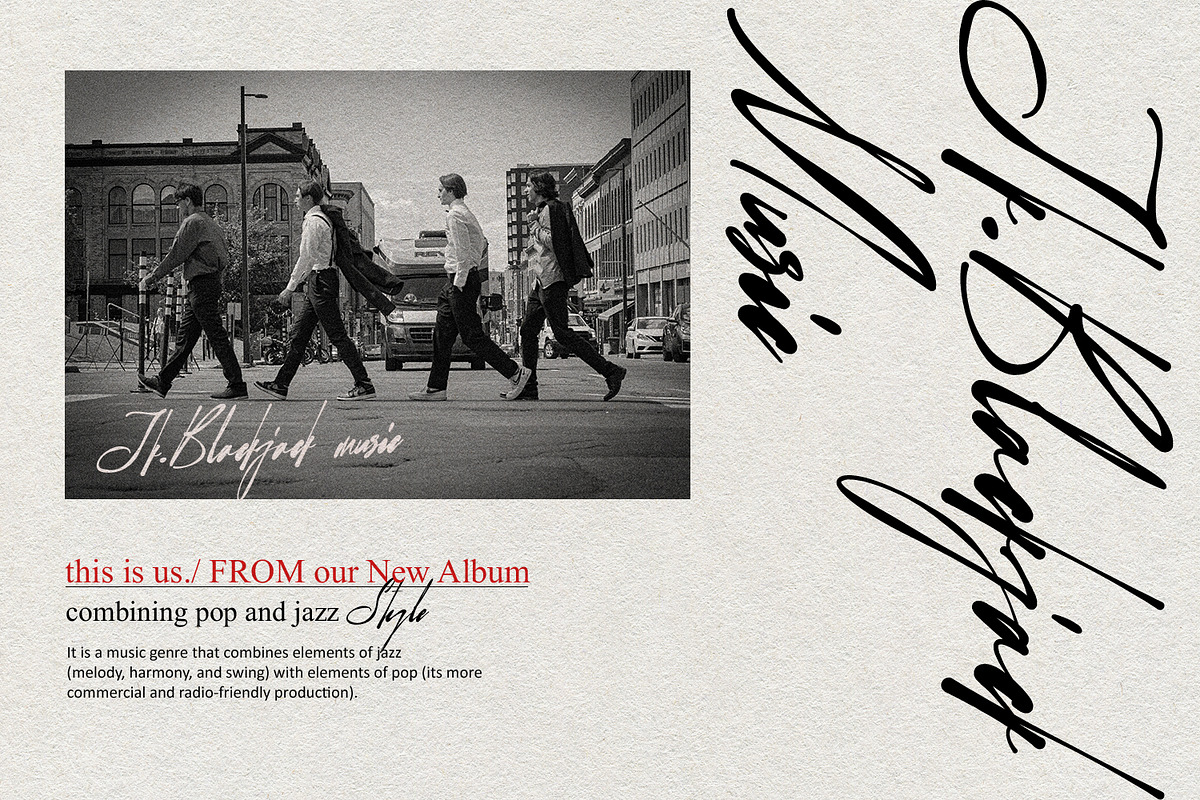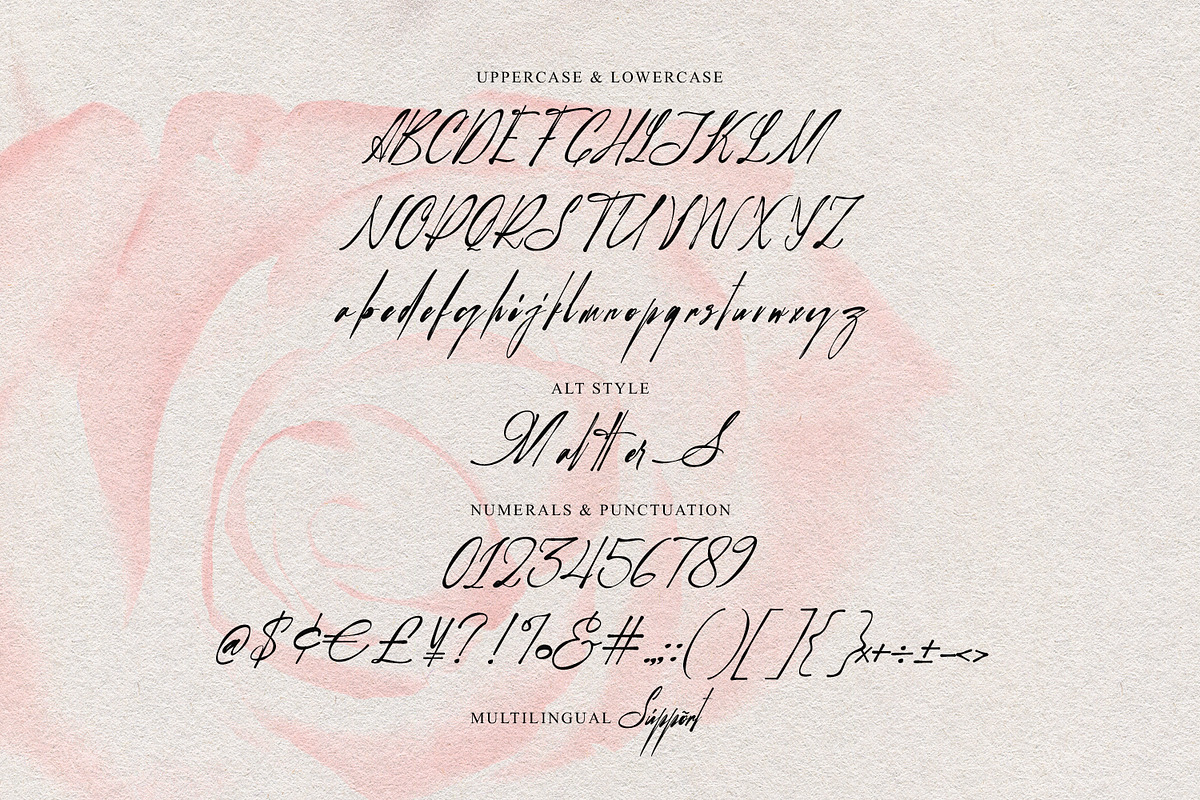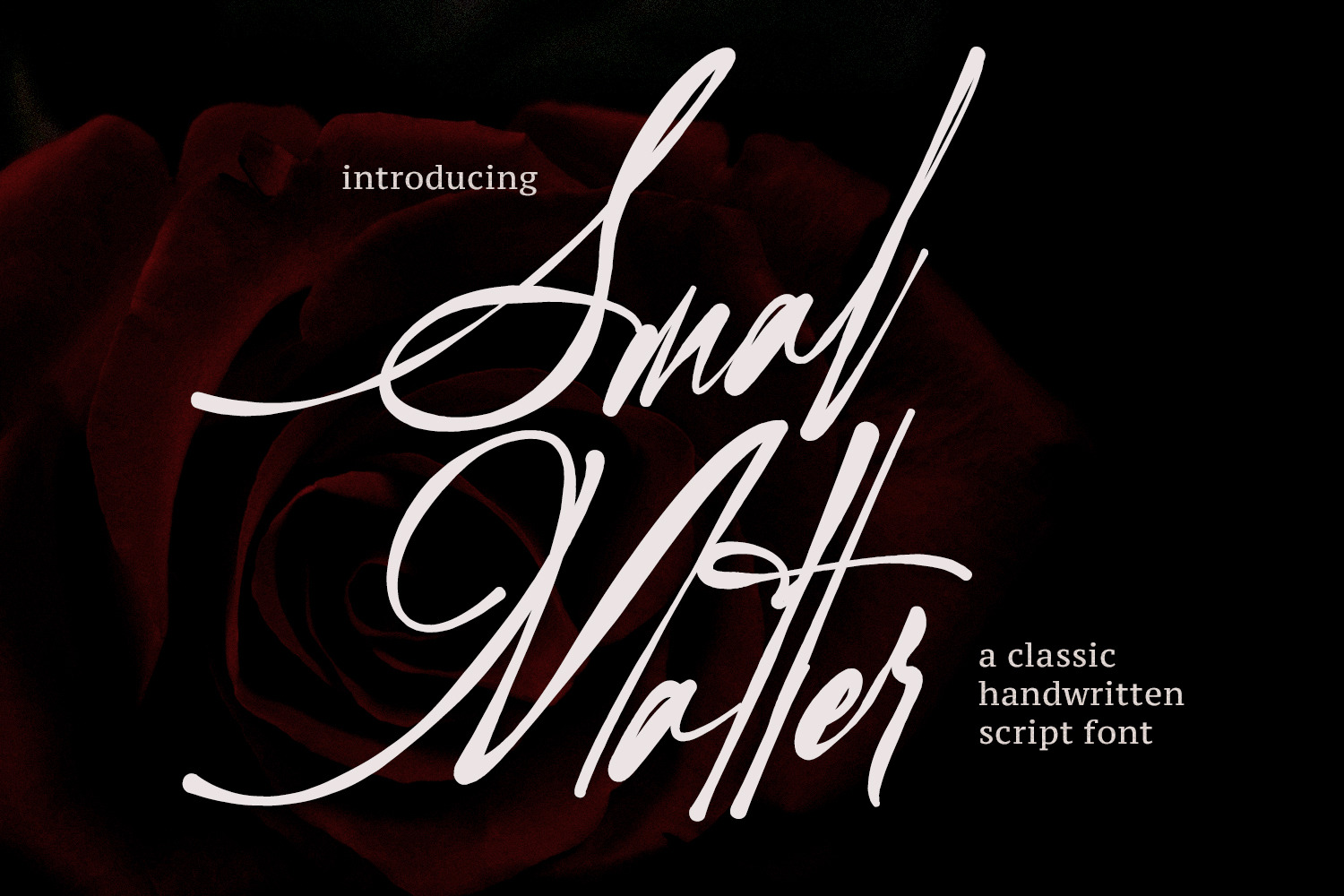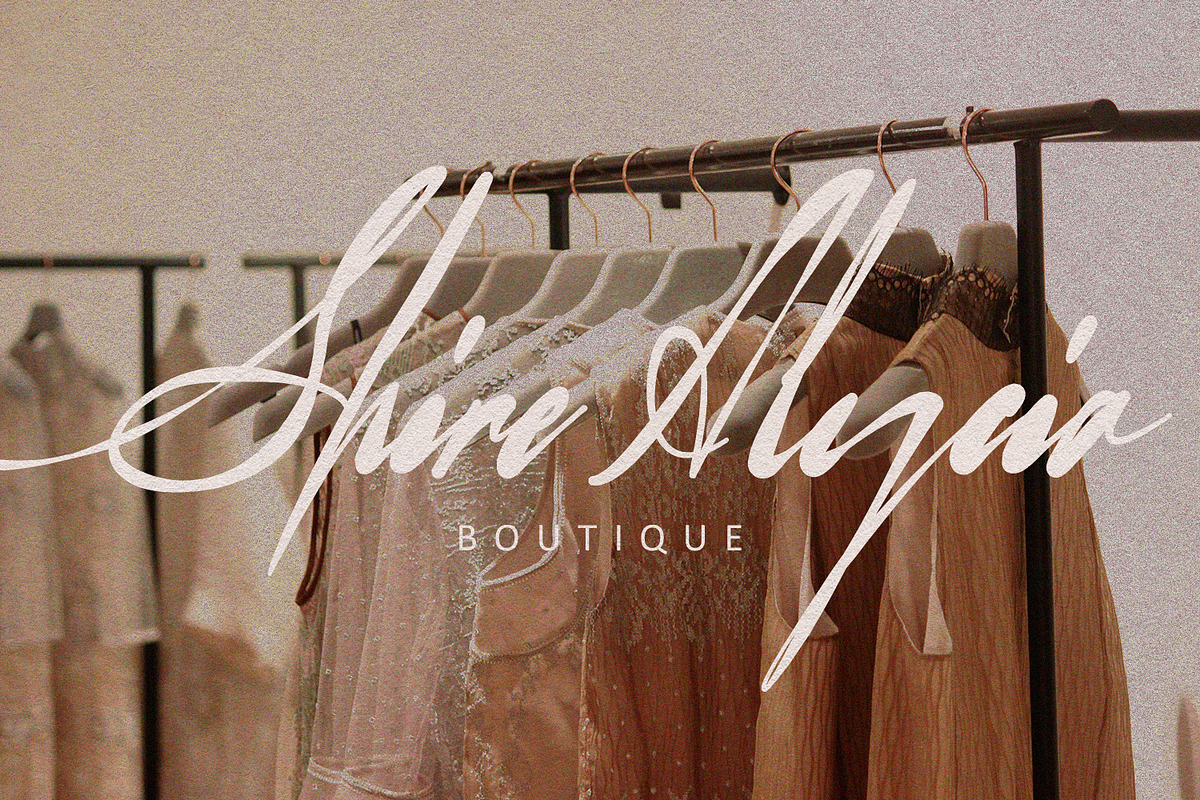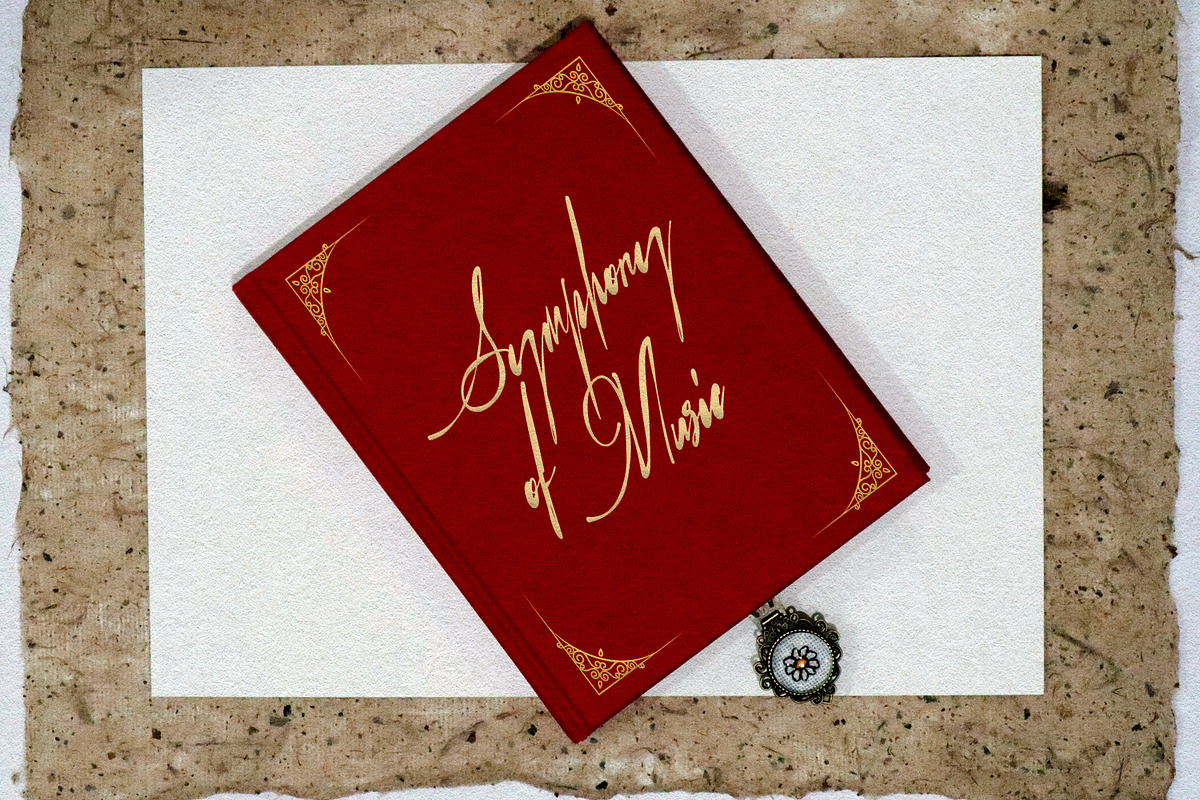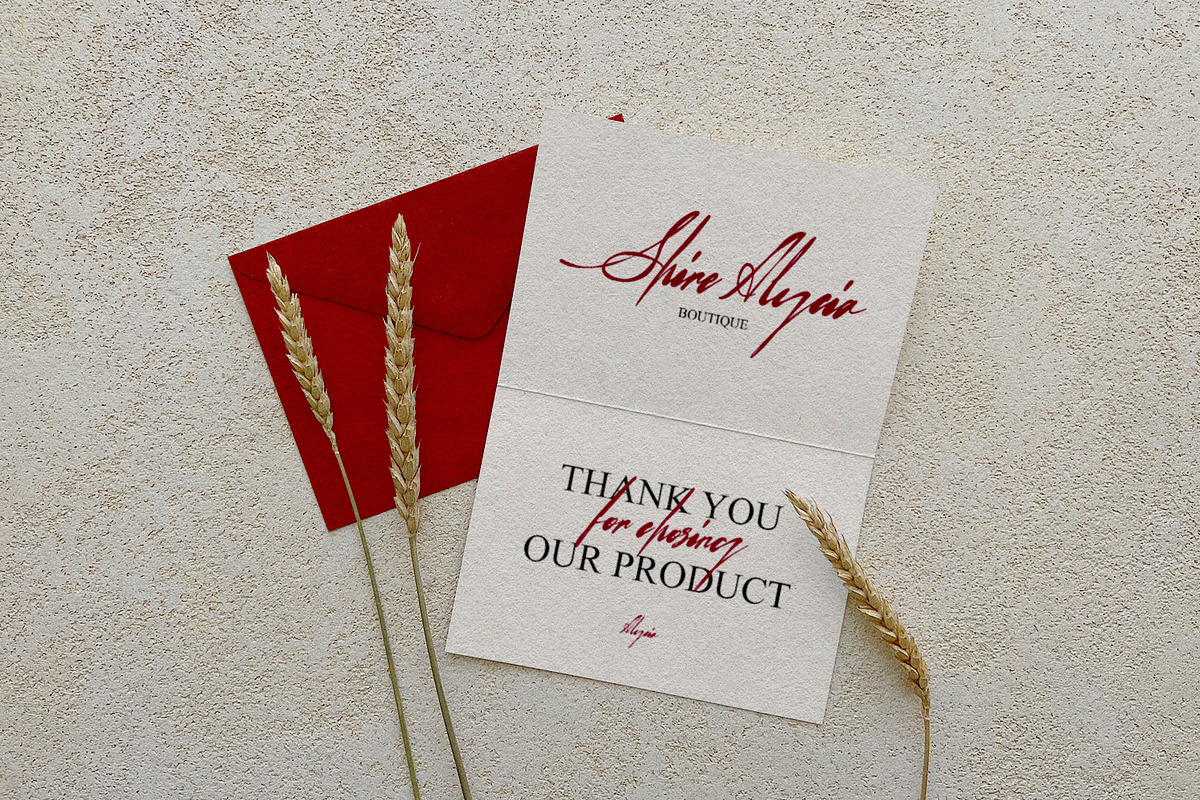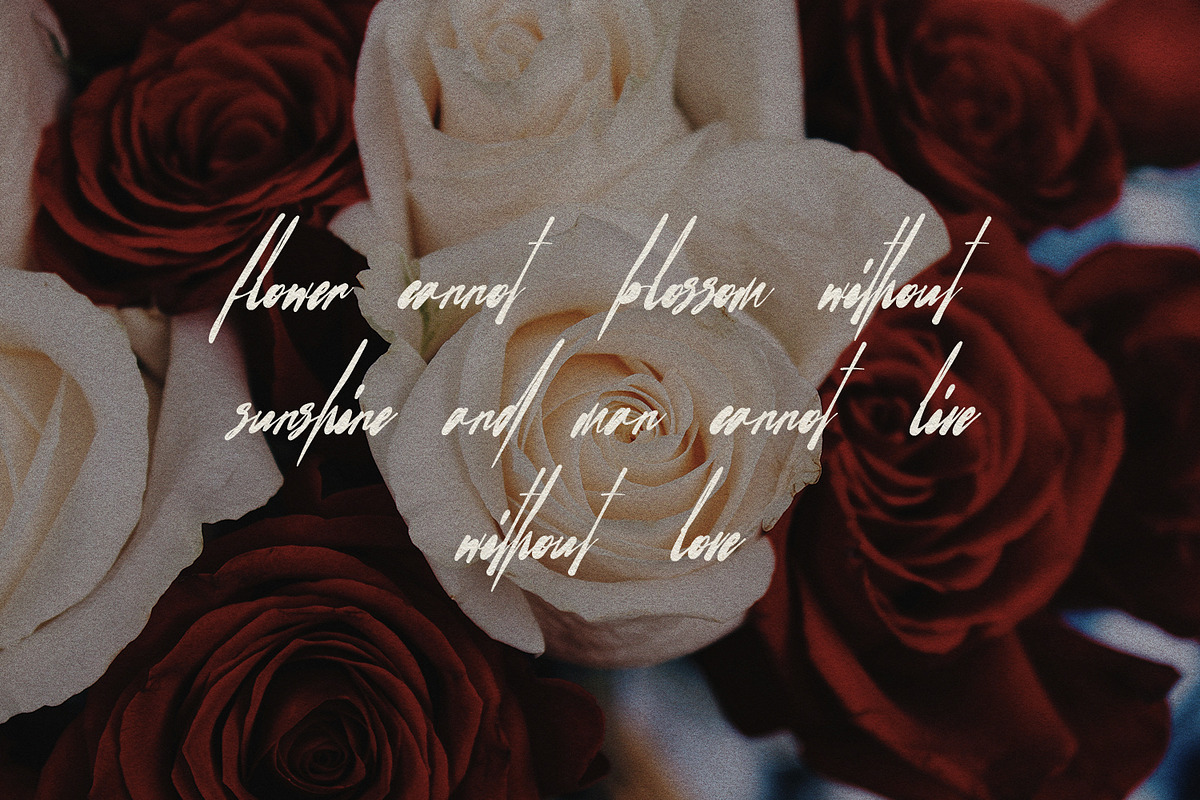
Smal Matter Classic Handwritten Font
Give your designs an authentic handcrafted feel. “Smal Matter Classic Handwritten Script Font” is perfectly suited to stationery, logos and much more.